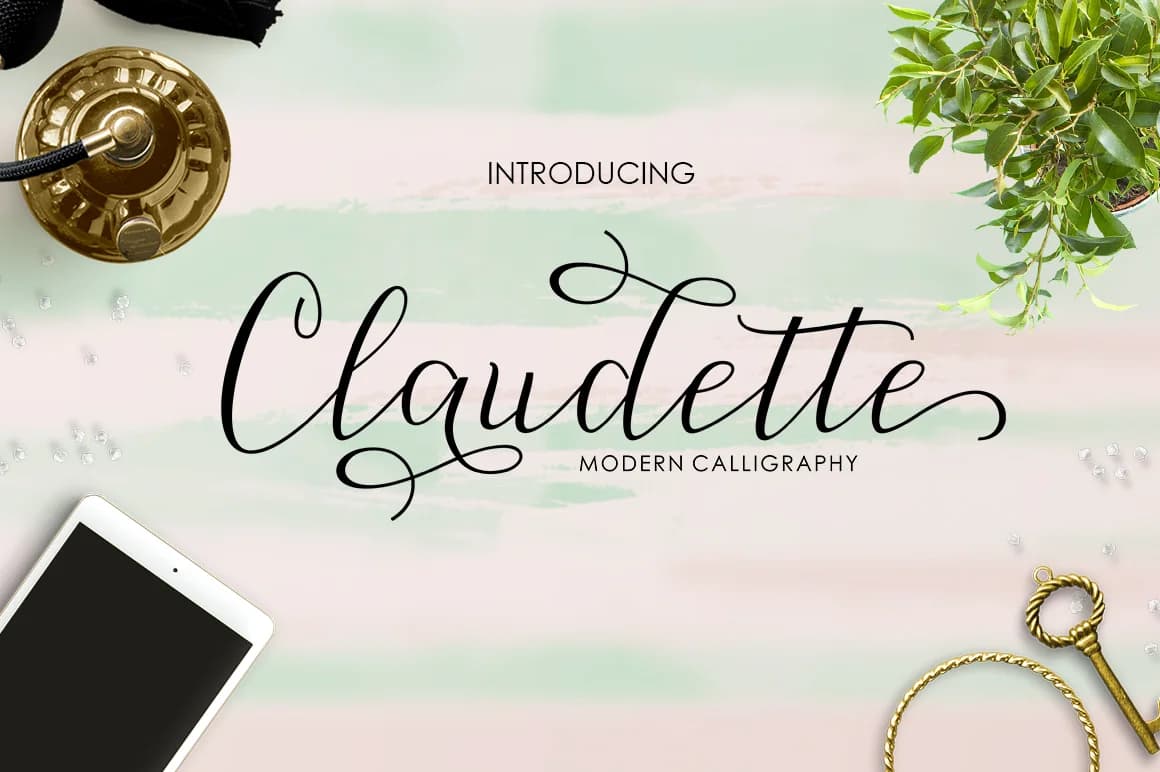
Claudette Font by Picatype Studio is a flowing script that captures the genuine character of hand-lettered work while remaining crisp and legible across various scales. The typeface expertly balances organic, expressive strokes with refined proportions, lending itself equally well to formal compositions or playful creative projects where personality and visual impact matter.
This script typeface excels across diverse professional and personal applications. You can deploy it for wedding invitation suites that require authentic hand-crafted appeal, Etsy product labels where artisanal character drives customer interest and perceived value, boutique skincare packaging that calls for sophisticated restraint and visual distinction, and DIY craft signs where readable letterforms make a genuine impact. The bold weight option provides additional flexibility, allowing you to layer typography, emphasize key messaging, or construct visual hierarchies within a unified design system.
Whether you're establishing brand identity for an independent creative business, designing event menus and table cards, creating custom vinyl decal artwork, or developing coordinated stationery systems, Claudette brings authentic handwritten warmth to projects where genuine character matters most. The typeface respects practical production demands while delivering the personal aesthetic that contemporary audiences gravitate toward. Discover how Claudette enhances your creative work by accessing the font on Creative Fabrica.
Claudette Font is a script font that shines as a display or heading face. Pair it with a clean sans-serif or serif font for body text β the contrast creates a clear hierarchy while the two styles stay balanced and easy to read.